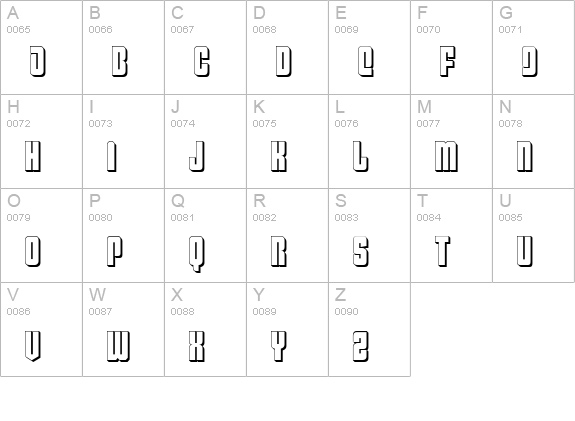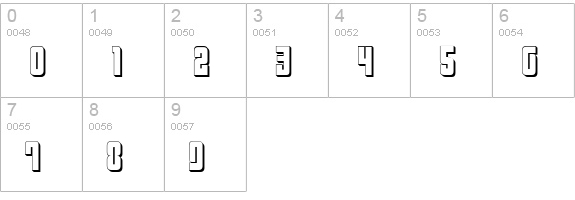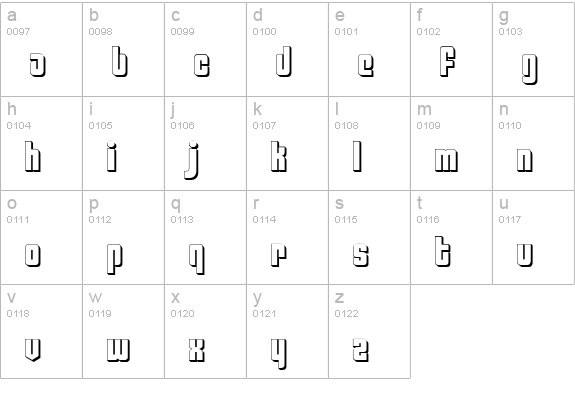
Philadelphia 3D Font Details
Introducing the captivating Philadelphia 3D font, a stunning addition to any design project seeking to make a bold statement. With its unique three-dimensional appearance, this font effortlessly combines elegance and modernity, creating a visually striking and eye-catching effect. The Philadelphia 3D font boasts a sleek and sophisticated design, with clean lines and sharp edges that give it a distinct edge. Its refined contours and intricate details make it perfect for a wide range of applications, from logos and branding materials to signage and packaging. What sets the Philadelphia 3D font apart is not only its impeccable design, but also its versatility. This font is highly adaptable, easily complementing any style or theme, whether it be contemporary, futuristic, or even retro. Its versatility makes it an ideal choice for graphic designers, artists, and creatives looking to add a touch of sophistication to their work. And the best part? Philadelphia 3D font is available for free! That's right, you can download this remarkable font at absolutely no cost on FontsMarket.com. Embrace the freedom to enhance your designs with this remarkable typeface, without having to worry about breaking the bank. So, whether you're working on a professional project, personal endeavor, or simply looking to add a touch of elegance to your designs, Philadelphia 3D font is the perfect choice. Download it for free today at FontsMarket.com and unlock a world of creativity and visual appeal. Elevate your designs and captivate your audience with the captivating Philadelphia 3D font.